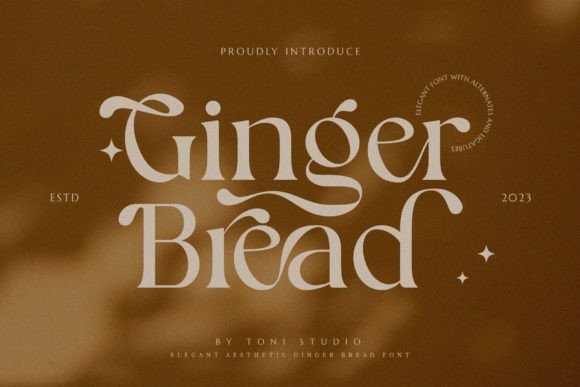
Adorn your designs with the captivating grace of "Ginger Bread," a serif font that exudes elegance and timeless charm. Its enchanting curves and modern aesthetics are a perfect blend of classicism and contemporary style. Prepare to be mesmerized by a palette of fun alternative characters, allowing you to infuse your creations with harmonious designs that resonate with your audience.
Picture this: a nostalgic mood board adorned with the delicate strokes of "Ginger Bread," transporting you to an era of vintage charm. Or, envision a captivating logo that radiates sophistication and heritage, its letters speaking volumes about your brand's rich history. Let "Ginger Bread" be your muse, inspiring designs that evoke a sense of nostalgia and timeless elegance.
This font's PUA encoding grants you effortless access to an array of enchanting glyphs and ligatures, empowering you to unleash your creativity and elevate your designs to new heights. Experience the joy of crafting harmonious compositions that captivate and engage your audience, leaving a lasting impression that lingers in their minds.
Welcome "Ginger Bread" into your design arsenal and witness the transformation it brings to your projects. Its versatility extends from presentations to branding, from invitations to social media graphics. With "Ginger Bread," you'll discover a font that seamlessly adapts to your creative vision, enhancing your messages with a touch of sophistication and enduring charm.
Let "Ginger Bread" be the cornerstone of your creative endeavors, propelling your designs to new realms of elegance and timeless appeal. Embrace the power of this remarkable font and unveil the hidden potential within your creations.